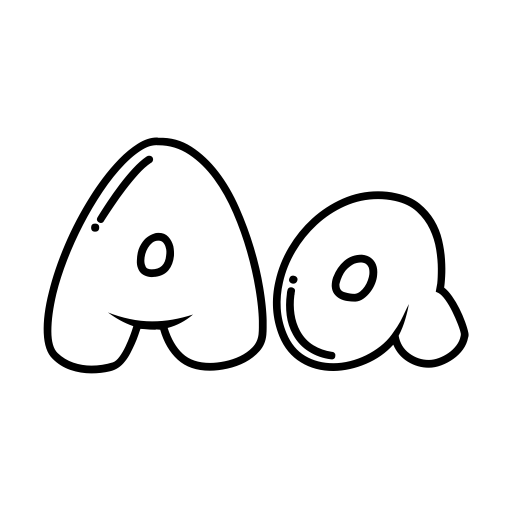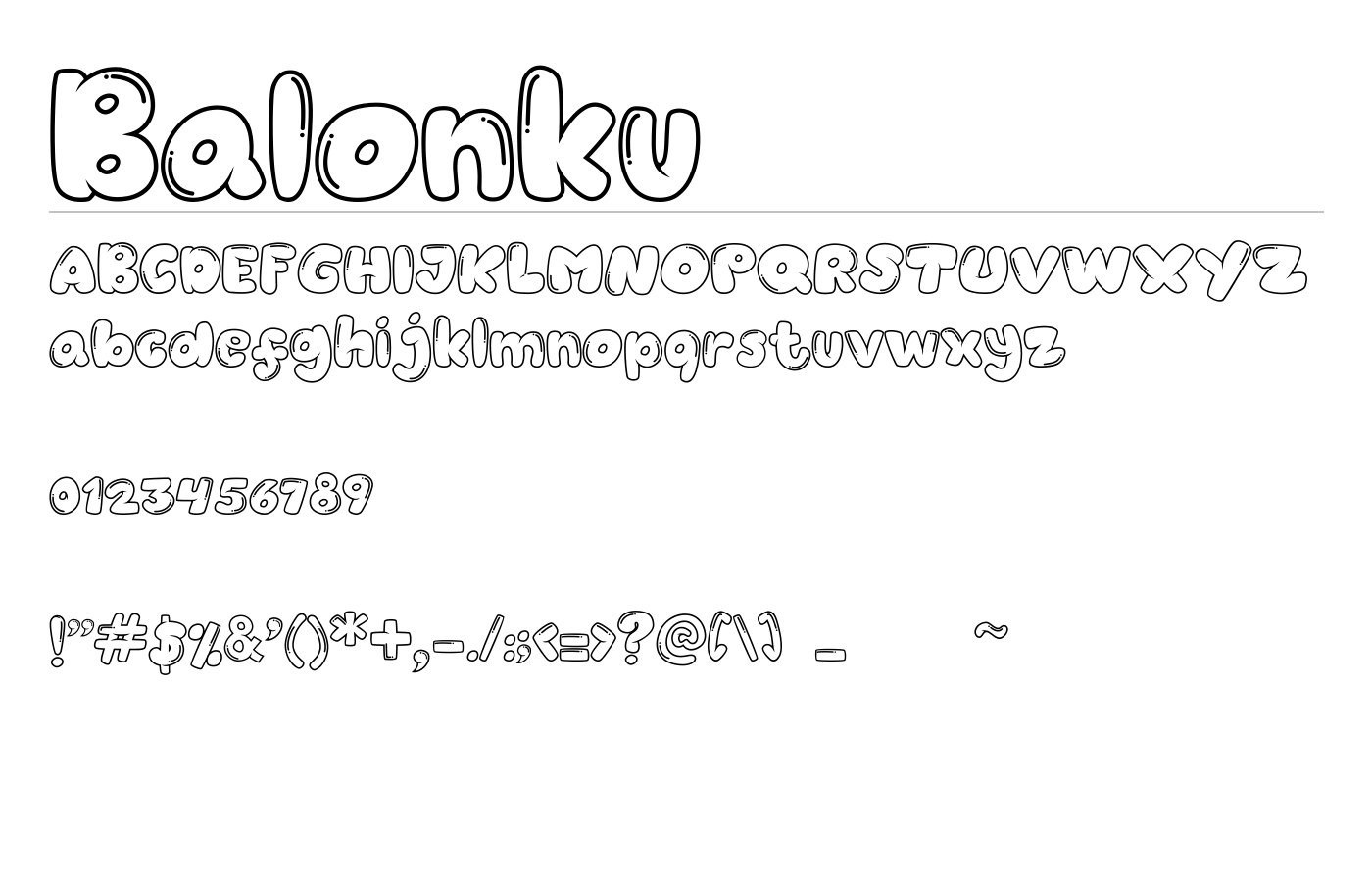
Balonku is a playful, rounded sans serif font with a bubbly, hand-drawn style that feels friendly and whimsical. Its thick, soft strokes and slightly uneven lines give it a casual, approachable personality, making it ideal for children's designs, fun branding, or informal headlines where a cheerful tone is desired. This font works well in creative projects that seek to convey joy and lightheartedness.
Balonku Font
About Balonku Font